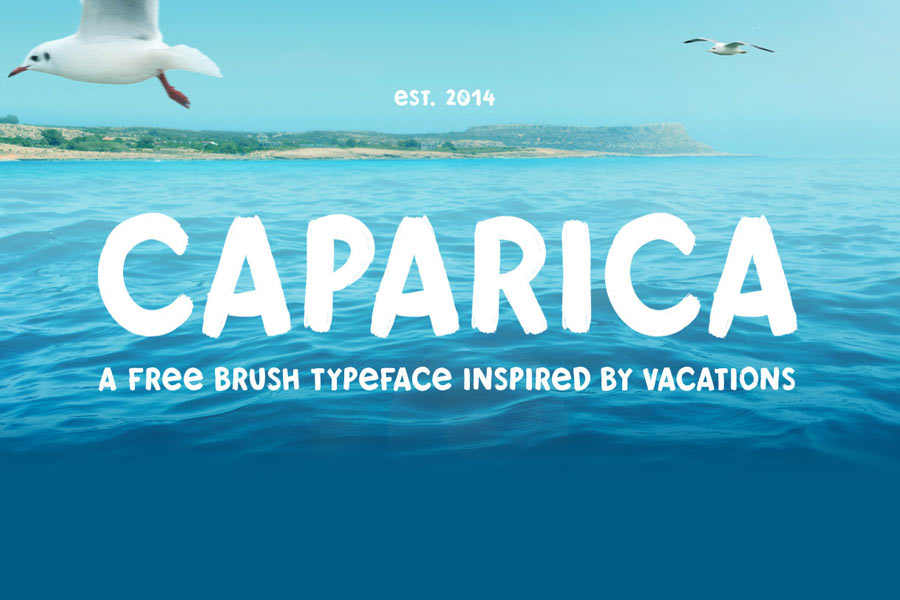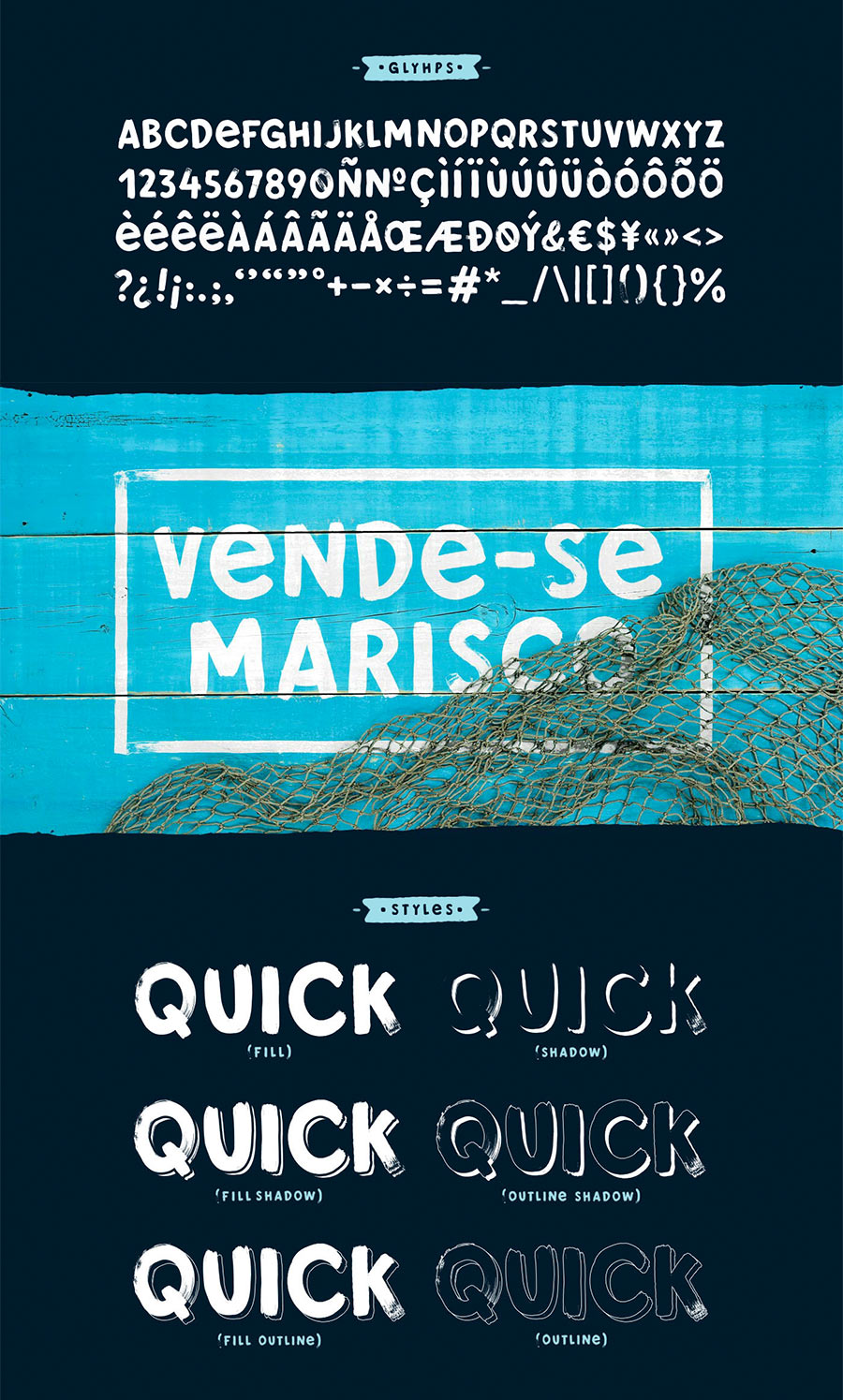
Caparica is a free brush typeface family that was inspired by vacations. Caparica is a famous beach in Portugal and the summer season, beach vibes etc are the kind of feeling emitted from the font design by designer João Pereira.
Caparica free font comes with 6 styles, where you can mix and match them to create the rich typographical designs. Personally I really like the uppercase “E” depicted in lowercase.